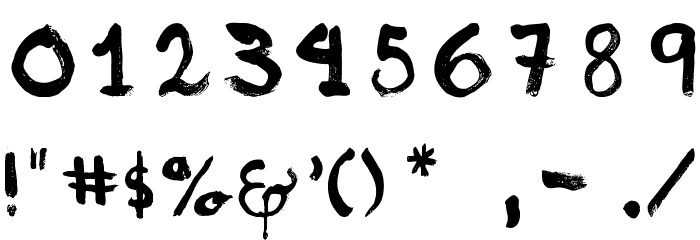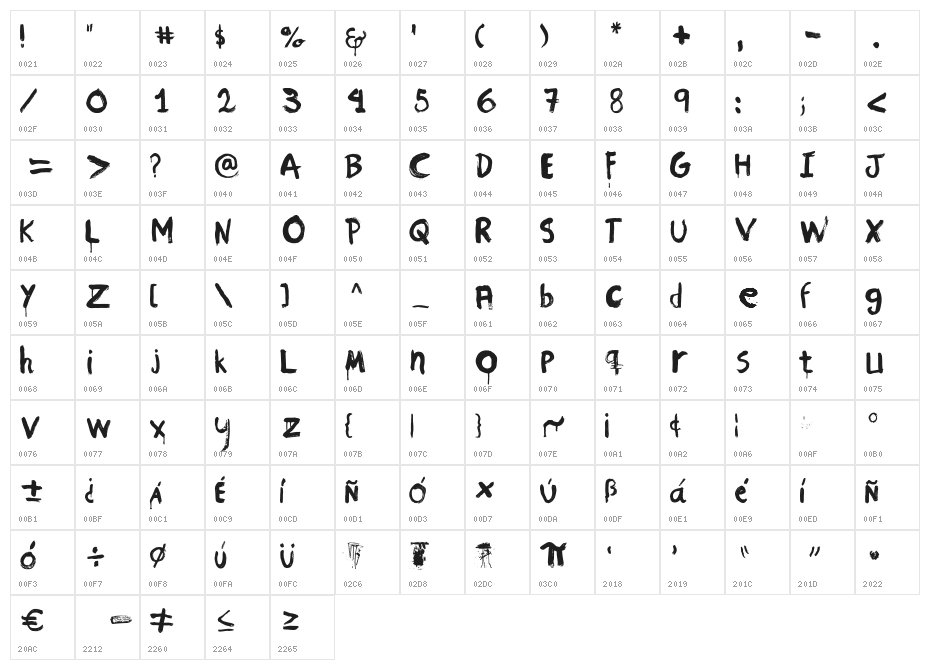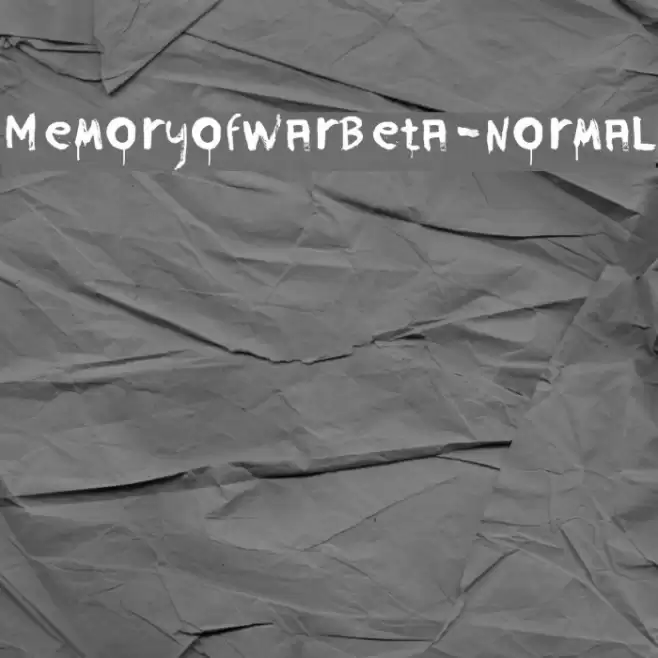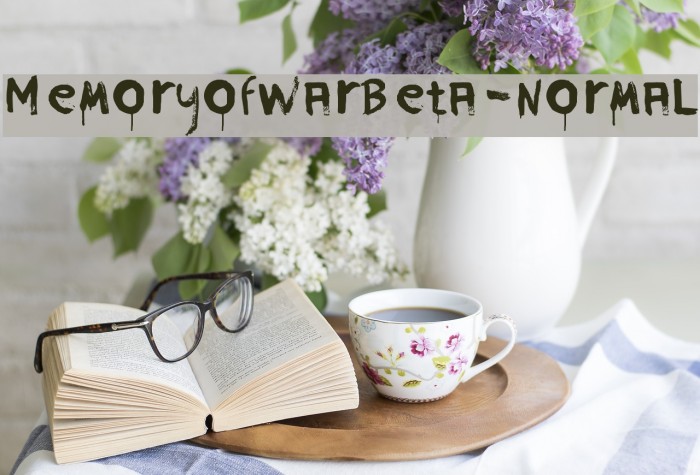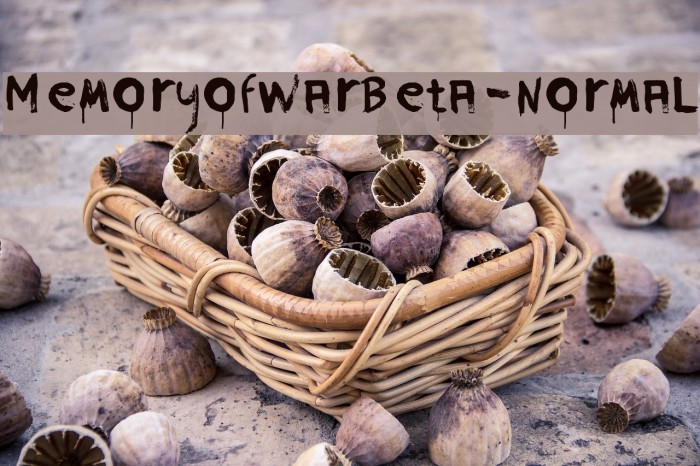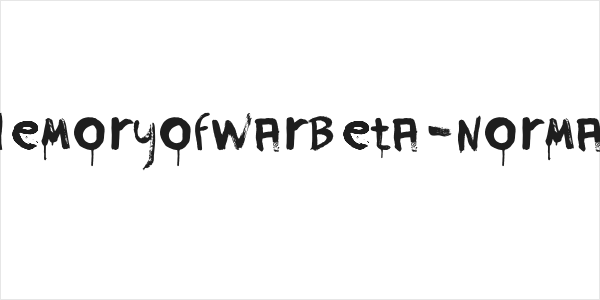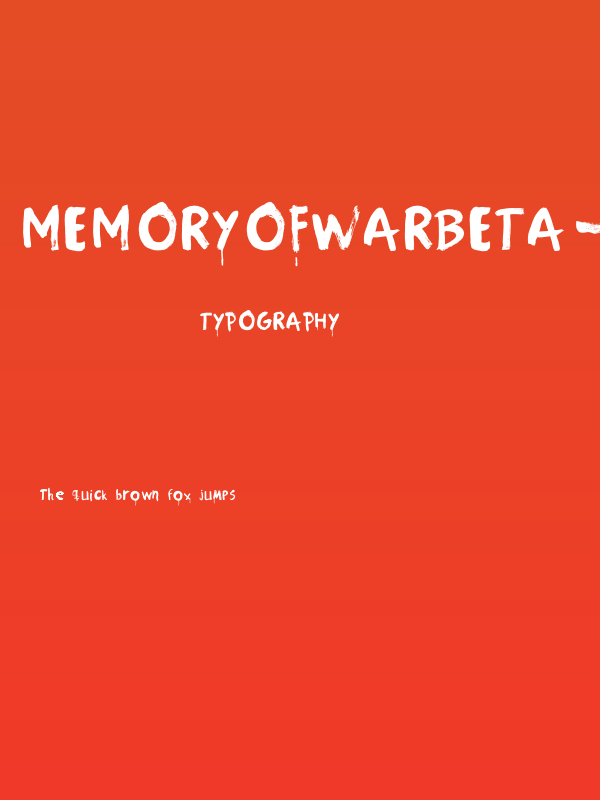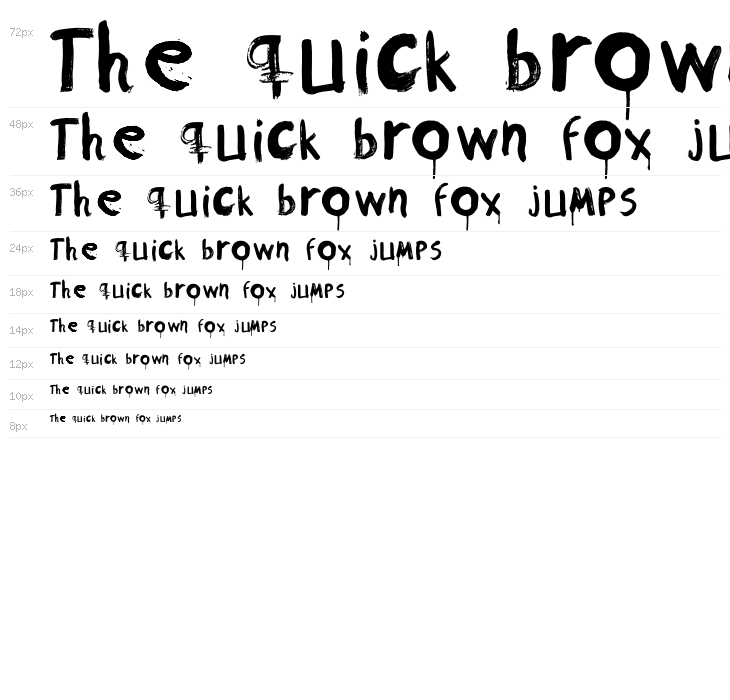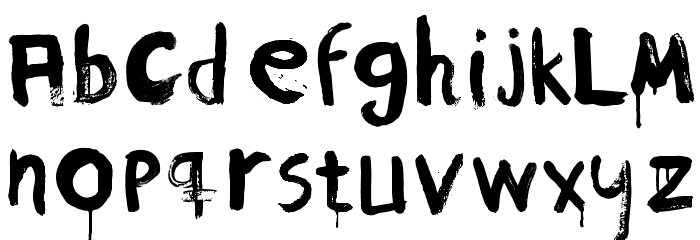
MemoryofWarBeta-Normal Font
MemoryofWarBeta-Normal Description
This font features a bold, expressive style with a distressed, grunge appearance. The characters have a hand-painted look, with uneven edges and a dripping effect that adds a sense of movement and intensity. The uppercase and lowercase letters maintain a consistent style, with some variation in stroke width that enhances the dynamic feel. Numbers and special characters follow the same aesthetic, making the font versatile for creative projects. The overall look is raw and impactful, suitable for designs that require a strong visual statement.
| Overall Style | Grunge, Expressive |
| Use Case | Headlines, Posters, Artistic projects |
| Proposed Projects | Ideal for album covers, posters, street art designs, and any project needing a bold, edgy aesthetic. |